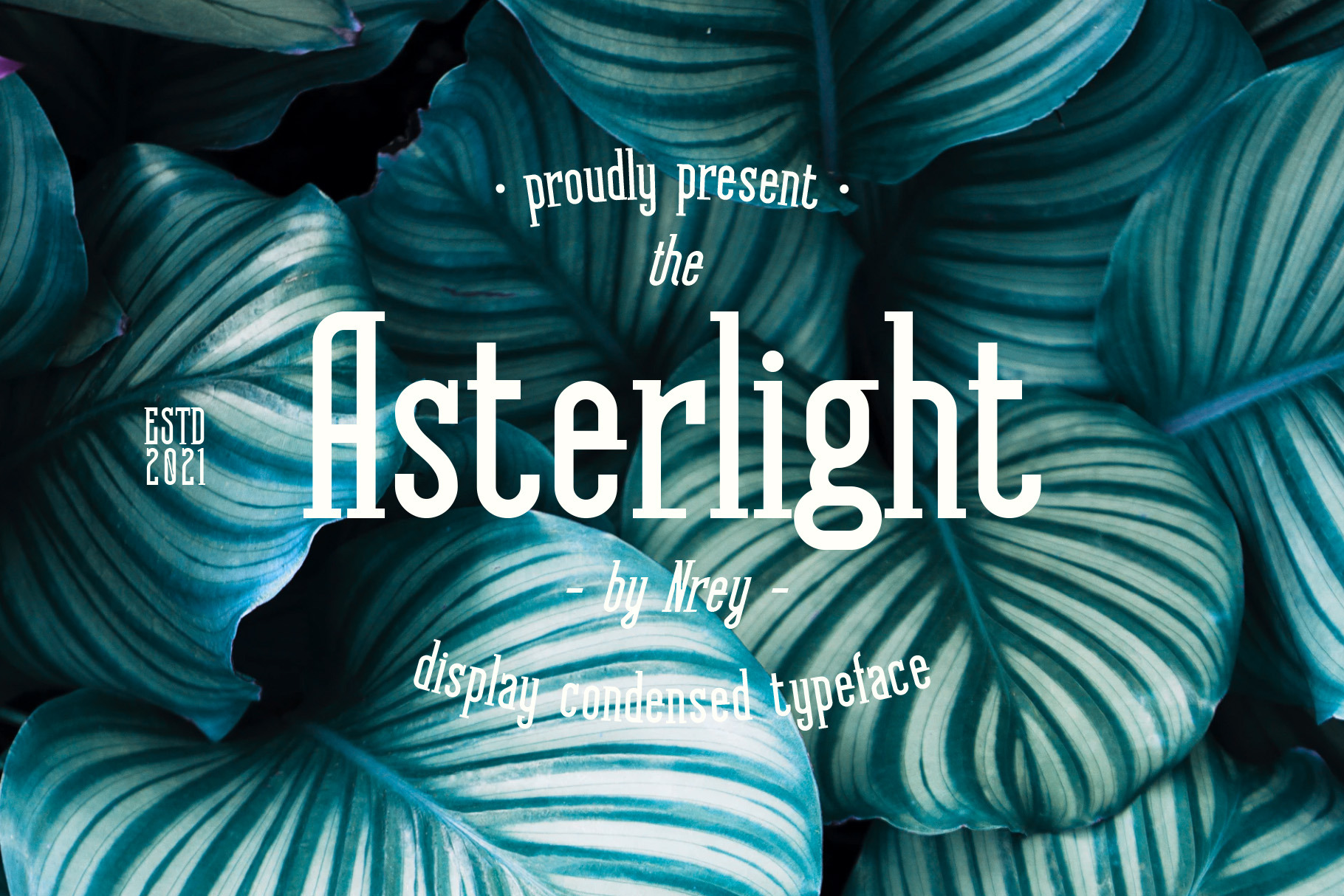
Asterlight typeface
Hi, friends! Introducing new typeface - Asterlight.
It is a new display font with 2 styles and cool characters.
Asterlight has multilingual support includes cyrillic. Many ligatures make your typography most variable.
It works well with normal size text and for large displays or short words. You may combine uppercase and smallcase in the text body, as alternates symbols. The Asterlight typeface is suitable for : product packaging, labeling, logo, classic shop, ethnic shop, titles, etc